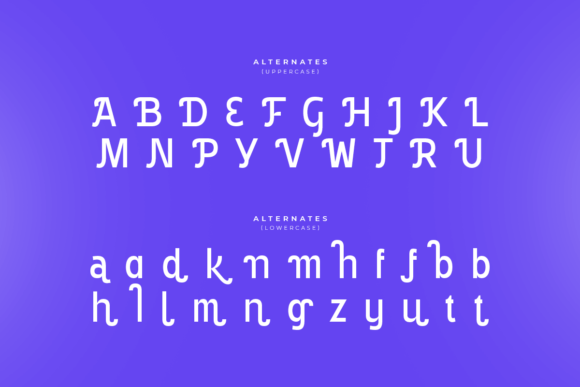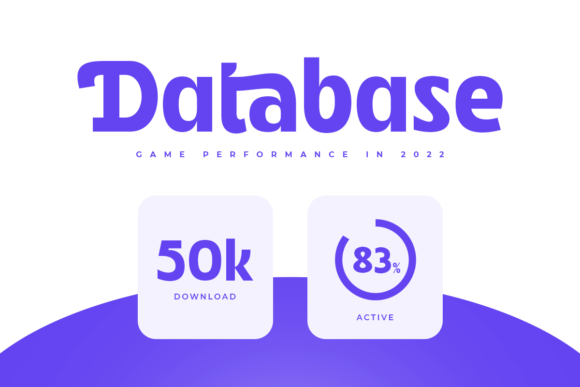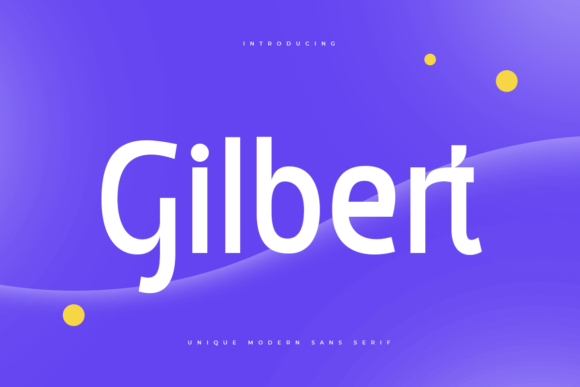
Gilbert Sans Font
Gilbert Sans Font is a bold and assertive sans serif font. No matter the topic, this font will be an incredible asset to your fonts’ library, as it has the potential to elevate any creation.